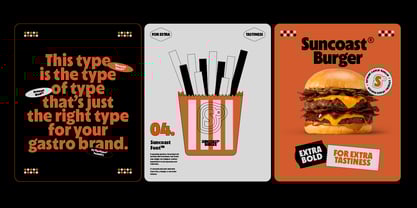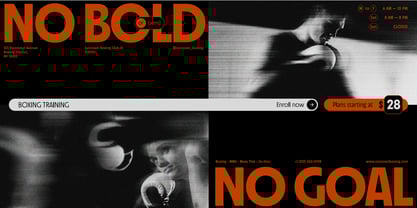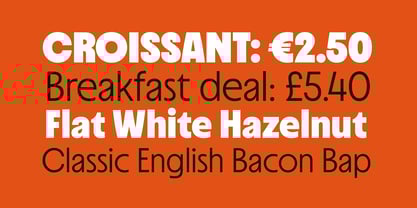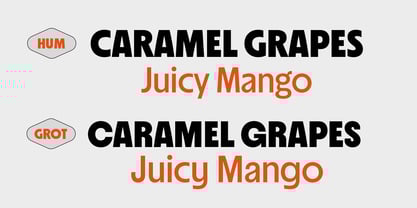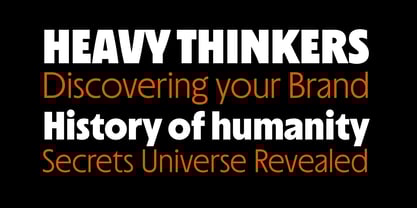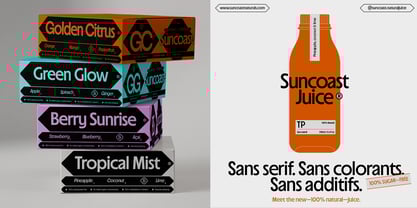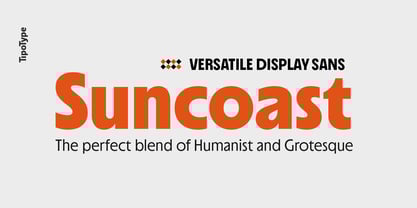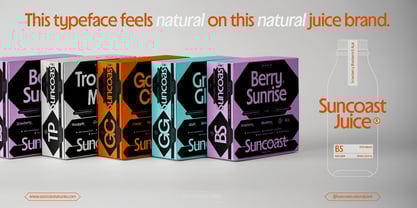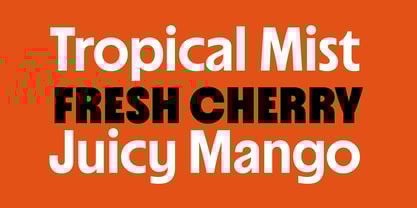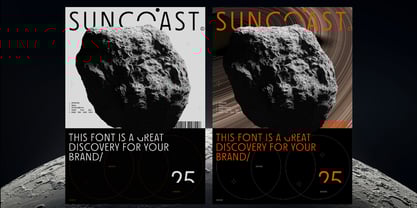
Suncoast
by TipoType
The Suncoast Font Family was designed by Tipotype Team and published by TipoType. Suncoast contains 32 styles and family package options. More about this family
Suncoast is a contemporary typeface with a retro soul. Inspired by the lettering that defined the visual identity of the 20th century, it blends the best of both worlds: the functional solidity of grotesques and the flowing warmth of humanist styles.
Its design is clean, fresh, and adaptable. Specially created for commercial products, Suncoast feels at home on gourmet packaging as well as retail campaigns, wine labels, or cosmetic lines.
It’s a multipurpose typeface, ideal for brands that aim for an authentic, versatile, and recognizable tone.
Two styles, one spirit
Suncoast Grotesque
Suncoast Humanist
Both are designed to be mixed and matched, allowing designers to modulate the typographic tone according to the brand’s context and personality.
With Suncoast, product design finds its own visual voice: professional, flexible, and stylish.